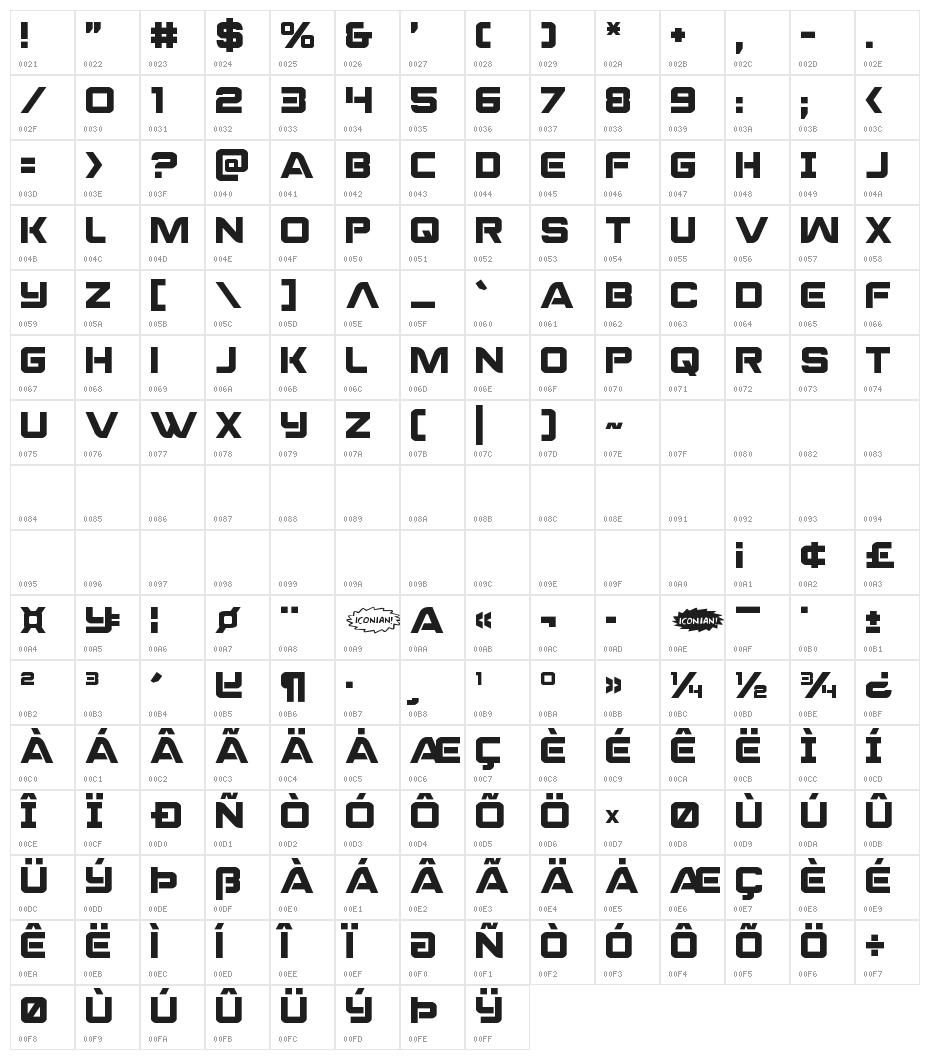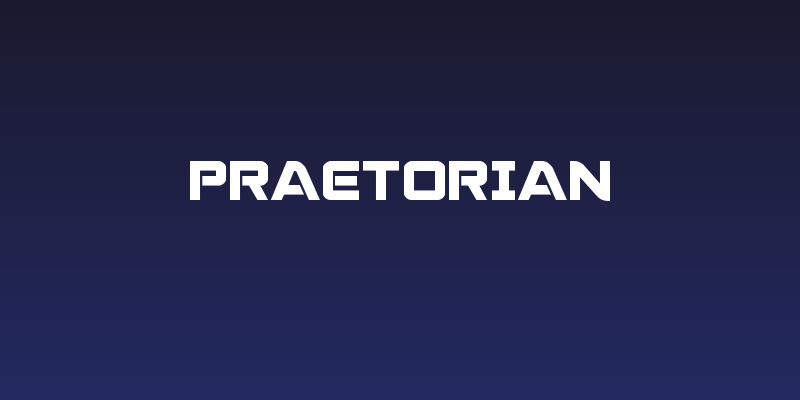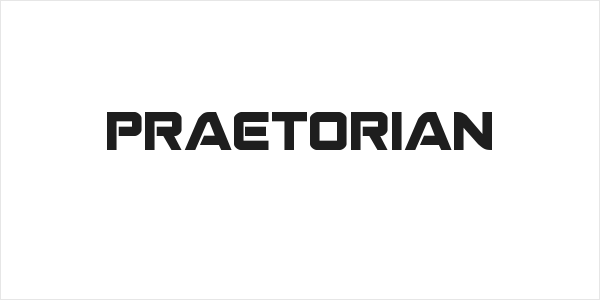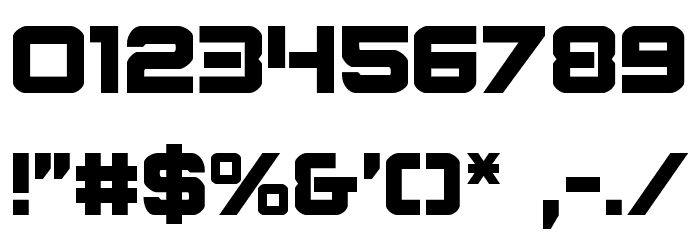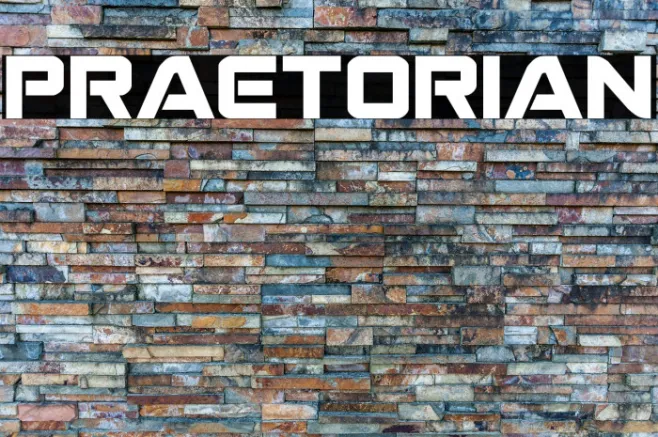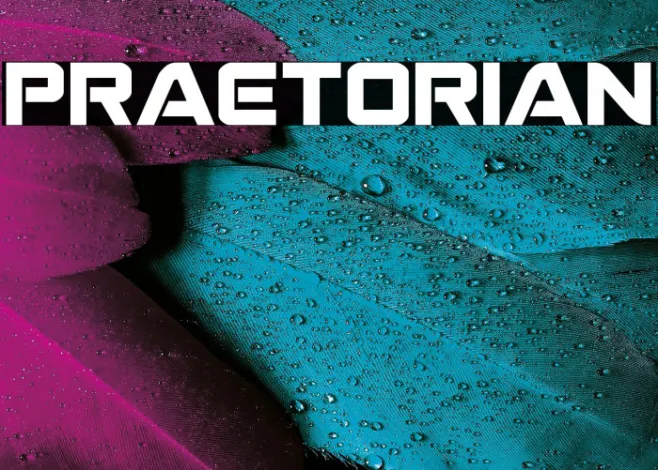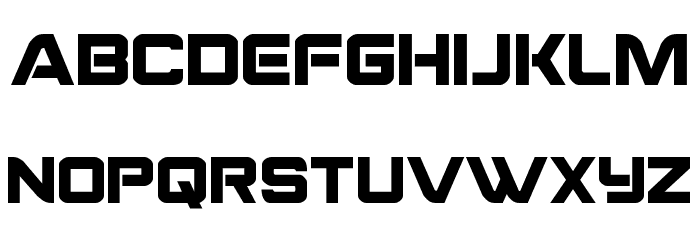
Praetorian Font
Praetorian Description
This font features a bold, geometric design with a strong, commanding presence. The characters are constructed with thick, uniform strokes that create a sense of solidity and strength. The angular edges and sharp corners give it a modern and futuristic appearance, while maintaining a clean and structured look. The uppercase and lowercase letters are consistent in style, with a slight variation in size and proportion. The numerals and special characters are designed to match the overall aesthetic, ensuring a cohesive visual experience. This font is ideal for projects that require a bold statement and a contemporary feel.
| Proposed Projects | Ideal for branding, posters, headlines, and any design requiring a strong, modern aesthetic. |